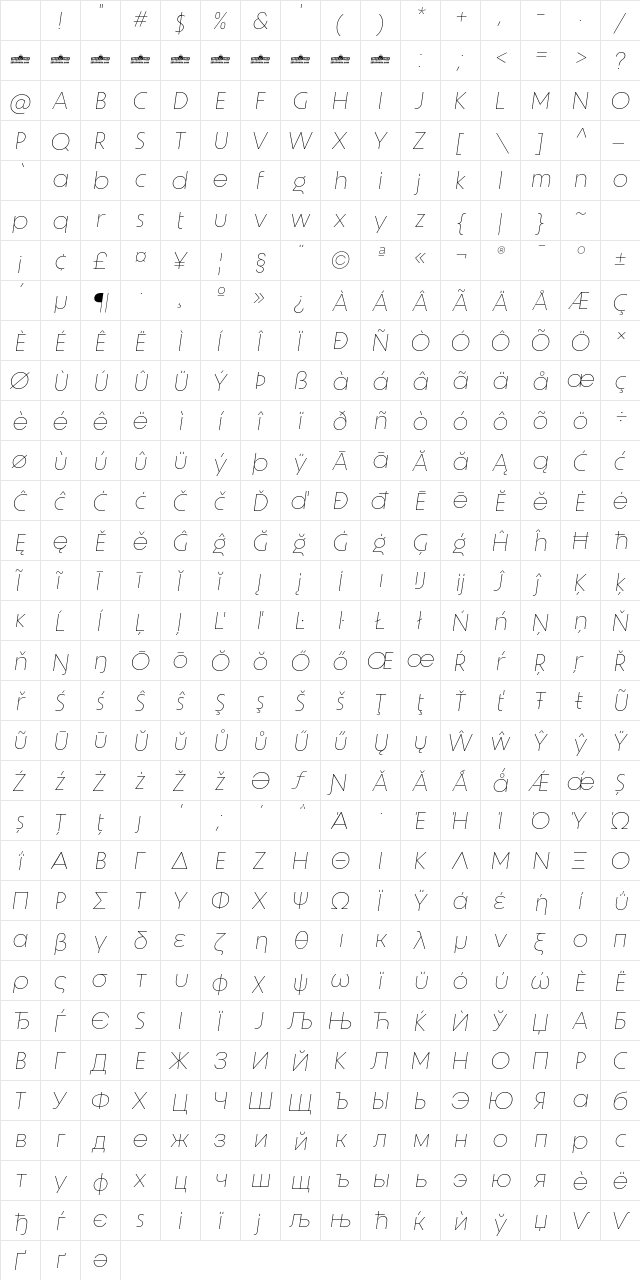
Complete Unigeo64 Trial Extralight Italic glyph index. Displaying only characters natively supported by Unigeo64 Trial Extralight Italic font.
Unigeo64 Trial Extralight is a composed and adaptable typeface that performs quietly and consistently across a wide range of design contexts. The slanted form adds forward momentum and visual energy. Its slender proportions lend an understated elegance to any composition.
Pro Tip: Use Unigeo64 Trial Extralight for emphasis, pull quotes, and subheadings where its slanted energy can add rhythm to the layout.